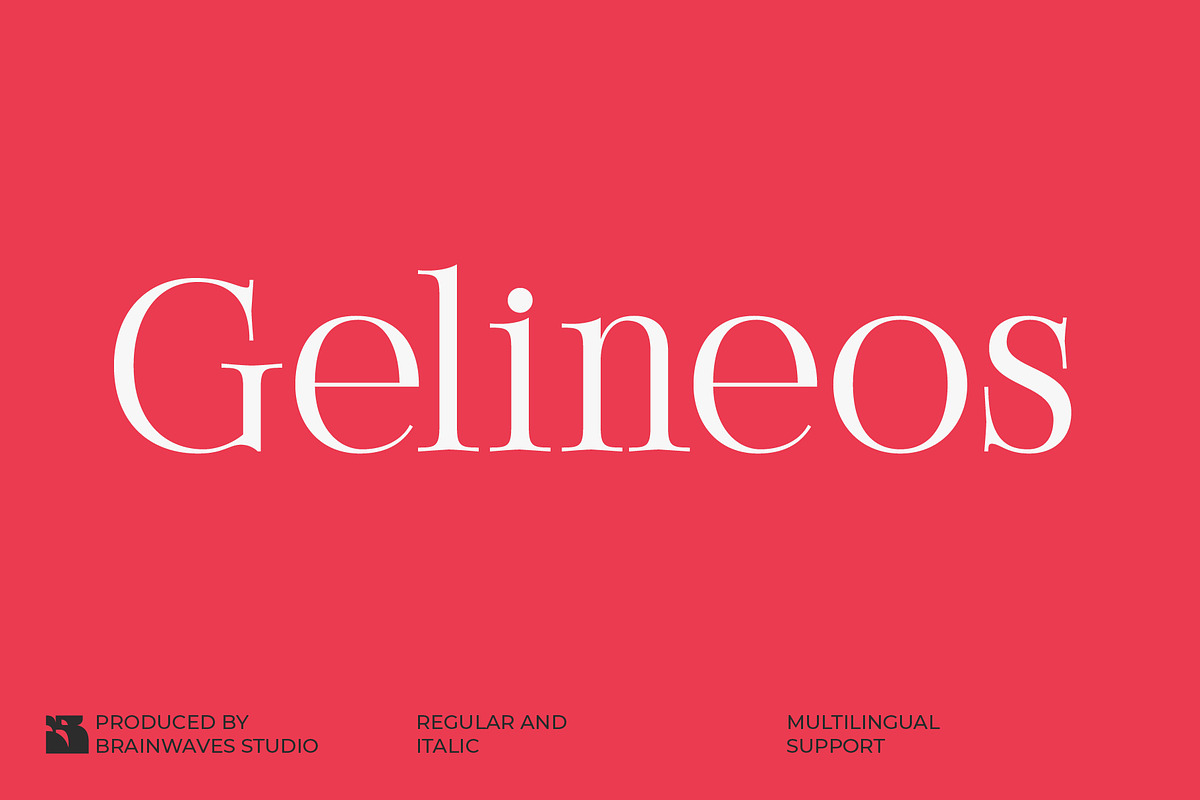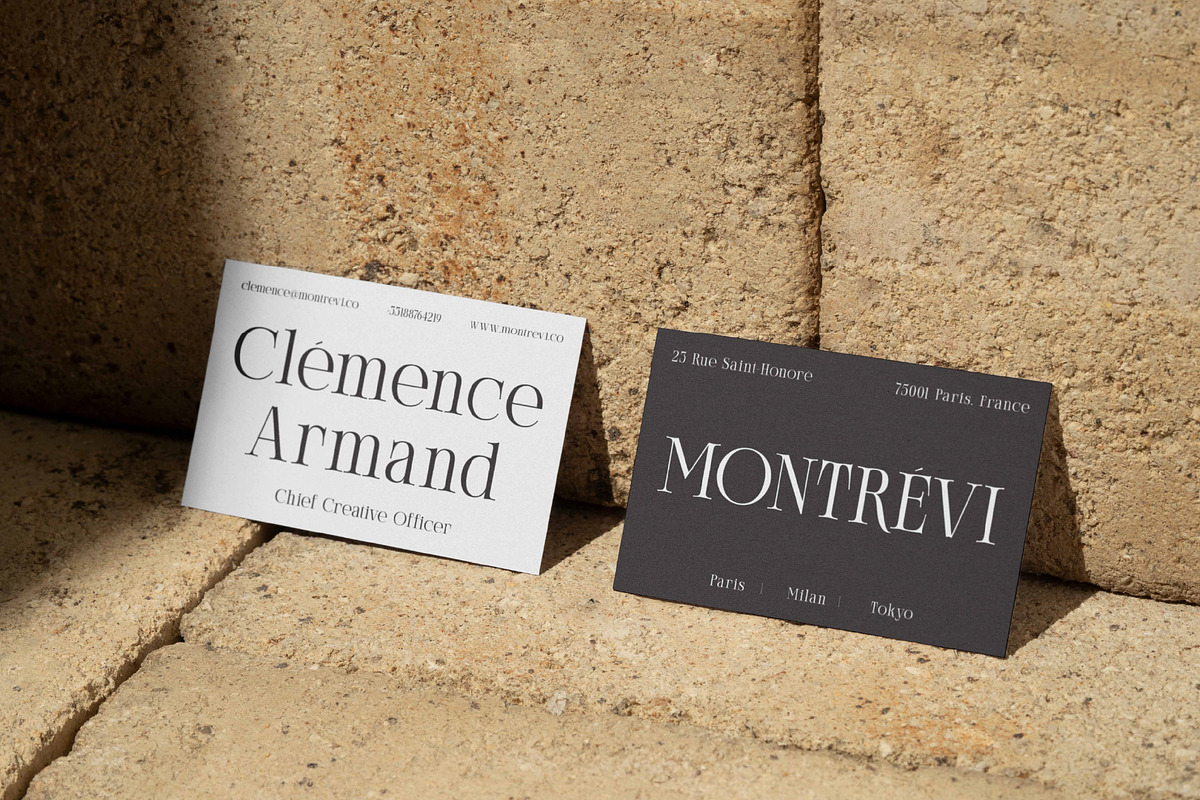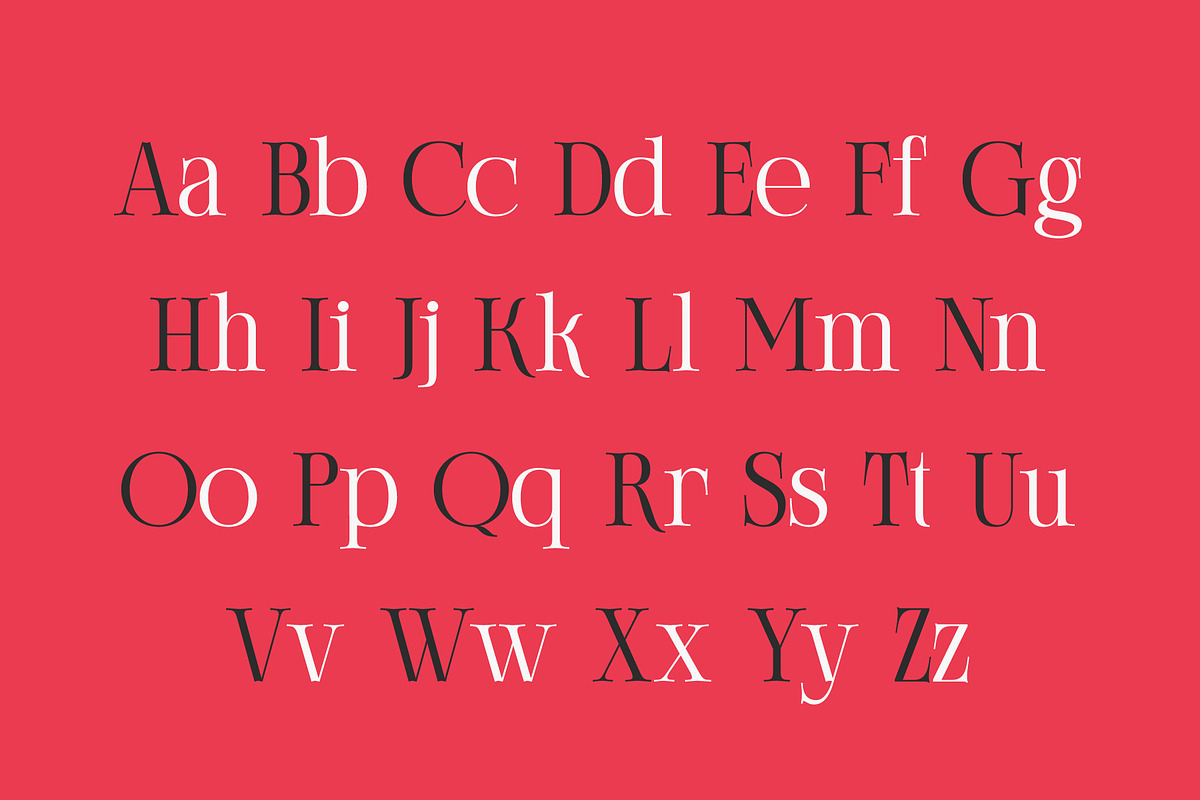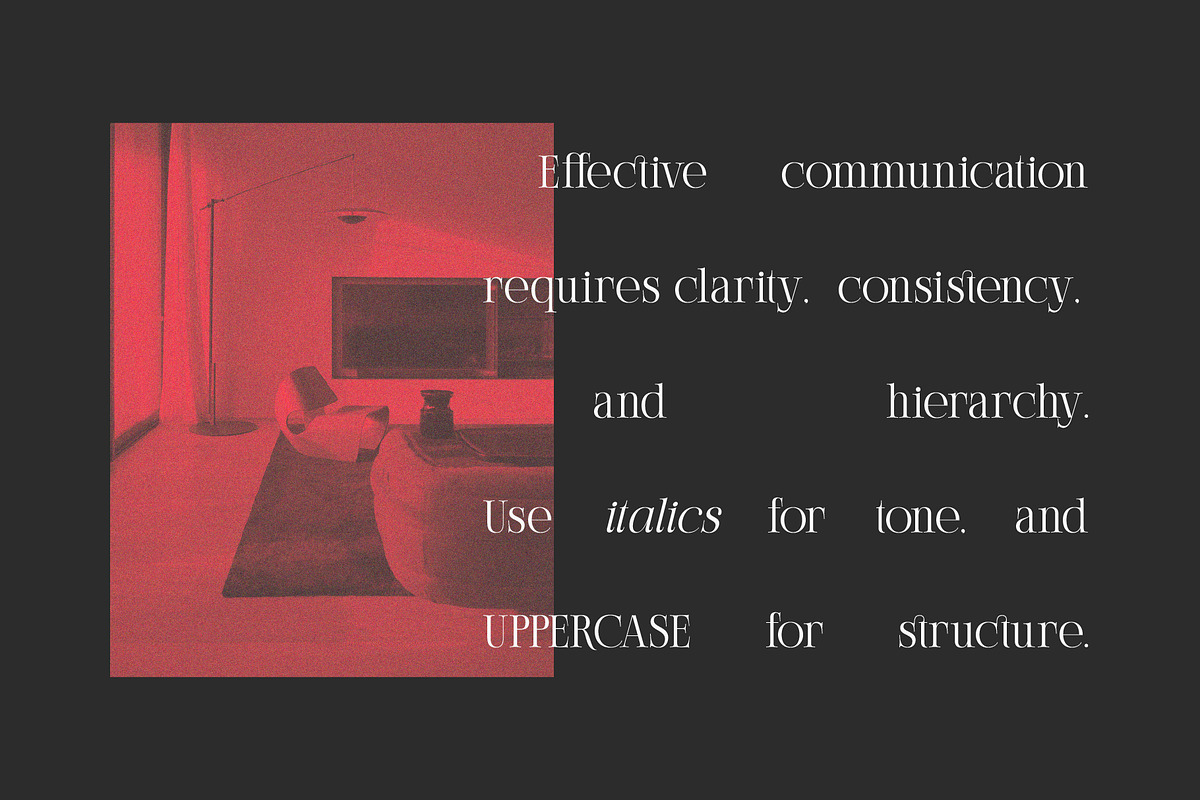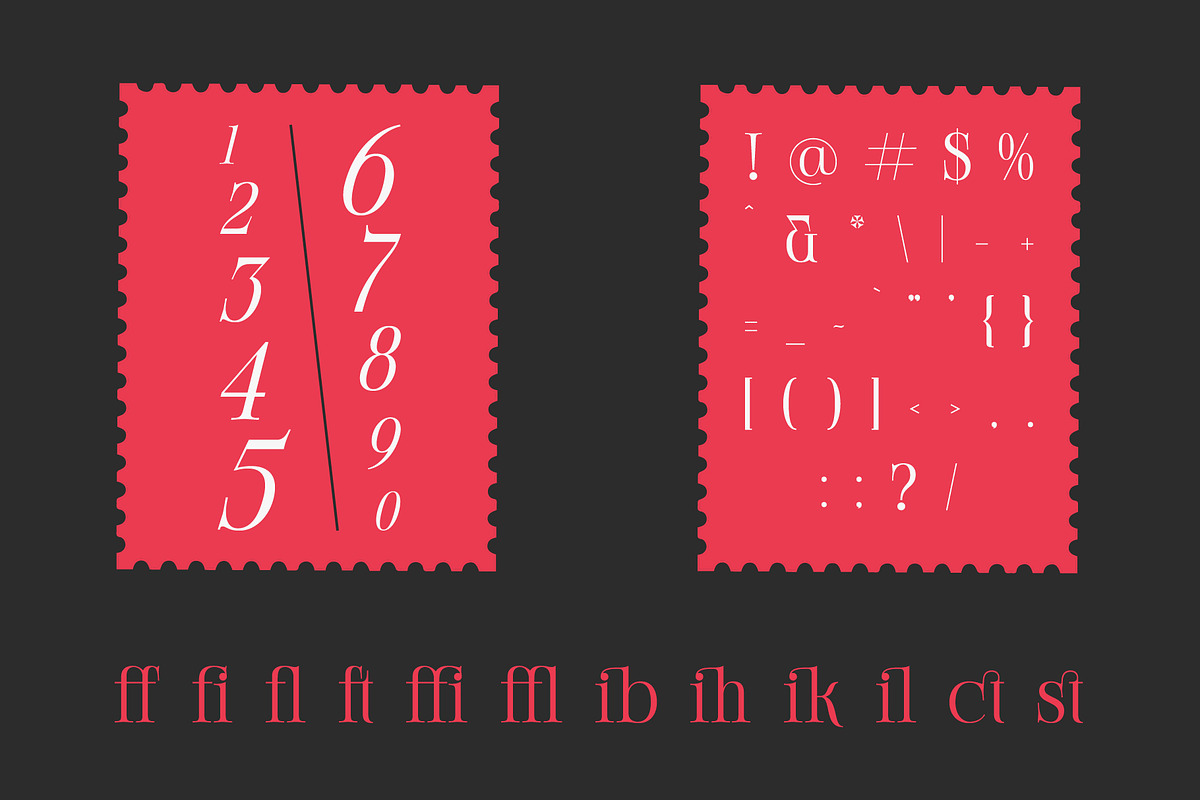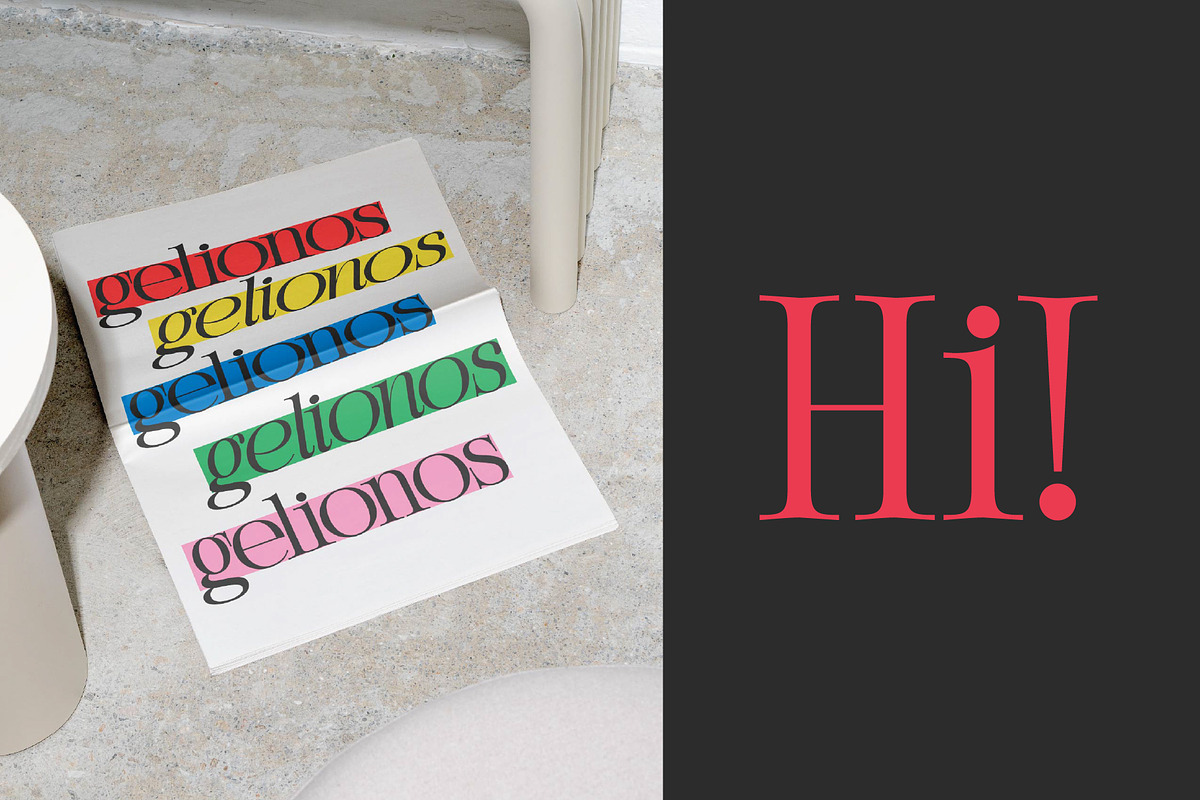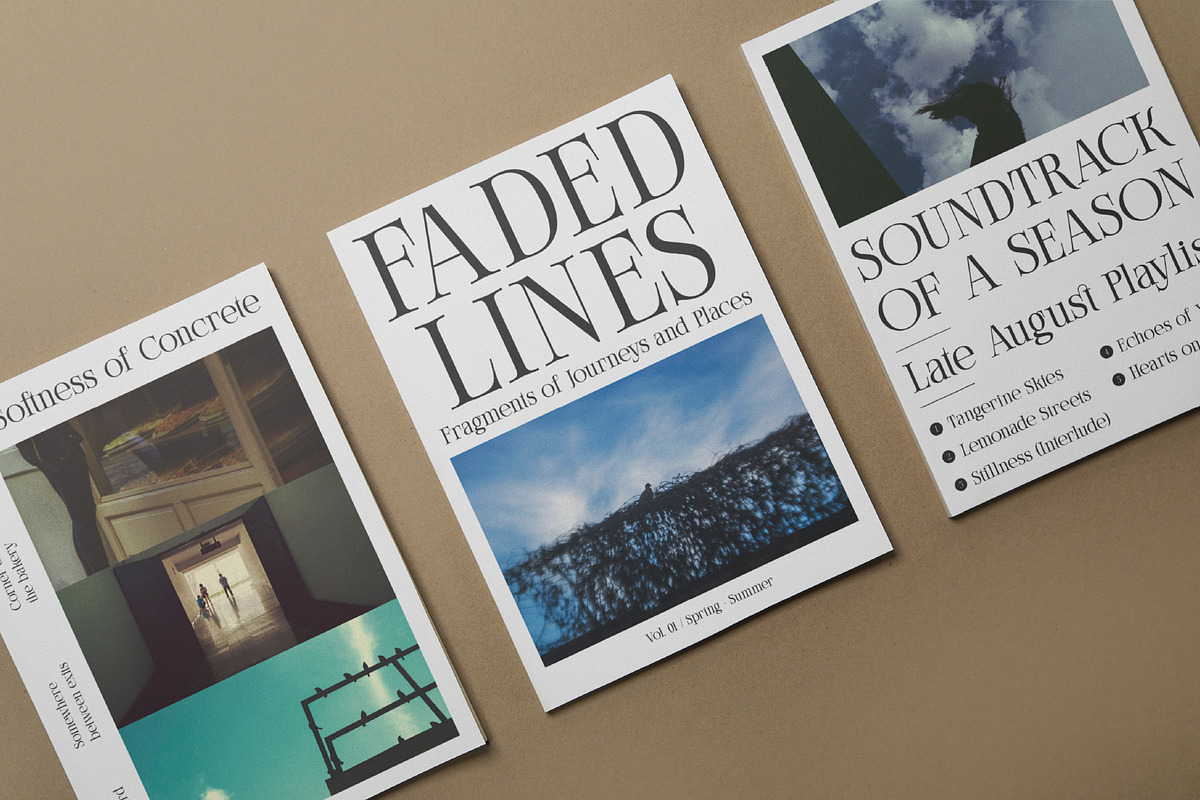
Gelineos - Modern Serif Display Font
Introducing Gelineos, the exquisite serif display font designed to bring a touch of timeless elegance and modern sophistication to all your creative projects! With its beautiful high-contrast strokes and refined letterforms, Gelineos is your go-to choice for designs that demand attention and radiate class.
Imagine your brand logo looking effortlessly luxurious, your wedding invitations exuding pure romance, or your magazine headlines captivating readers with every glance. Gelineos offers that perfect blend of classic charm and contemporary flair, making it incredibly versatile for a wide range of uses. It's clean, legible, and utterly captivating.
What Makes Gelineos Special?
- Elegant & Modern Serif: A graceful design that feels both classic and fresh.
- High-Contrast Appeal: Beautiful thick and thin lines for a premium, sophisticated look.
- Regular & Italic Styles: Two versatile styles to give your text depth and emphasis.
- Full Character Set: Includes uppercase, lowercase, numbers, punctuation, and symbols.
- Standard Ligatures: Enhance your typography with standard letter combinations like ff, fi, fl, and more!
- Multilingual Support: Broad language support to reach a global audience.
Suitable For
- Luxury Brand Identities & Logos
- Wedding & Event Invitations
- Fashion & Editorial Magazine Layouts
- High-End Product Packaging
- Modern Website Headers & Banners
- Social Media Marketing Graphics
- Book Covers & Publishing Designs